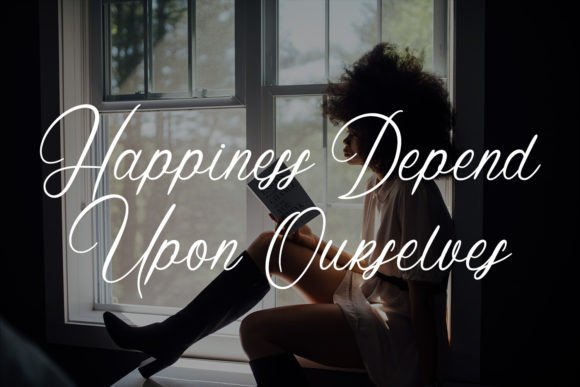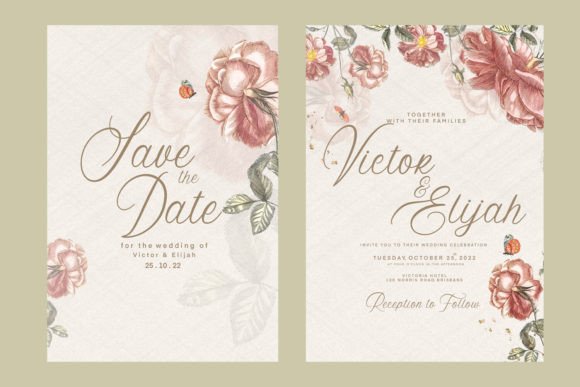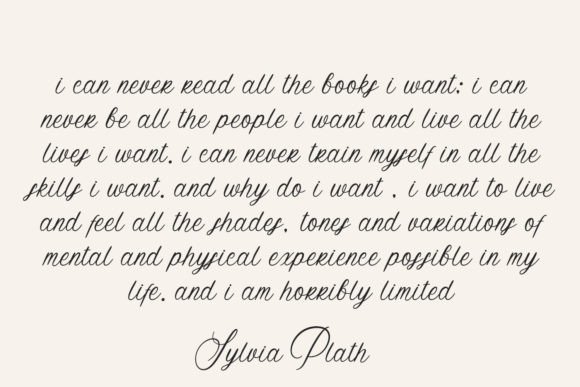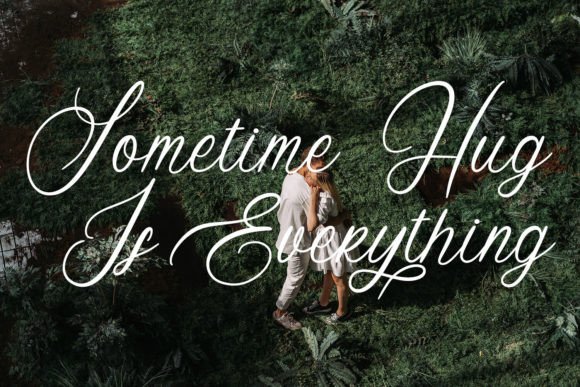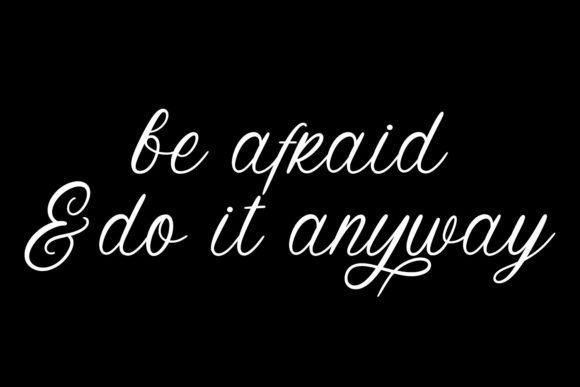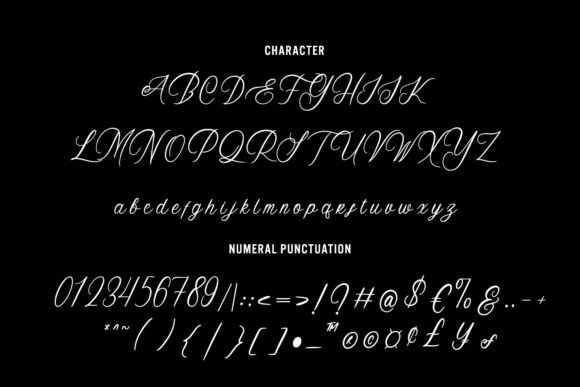
Unveiling the Charm of Behind Story Font: Elevate Your Designs with a Touch of Handwritten Elegance
In the realm of typography, fonts play a pivotal role in conveying the essence and personality of a design. Among the myriad of fonts available, the Behind Story Font stands out for its unique, handwritten characteristics, making it an ideal choice for designers and crafters looking to infuse their projects with a personal touch. In this article, we’ll delve into the story behind this captivating font, its features, and how it can be a game-changer for various design projects.
The Genesis of Behind Story Font
Behind Story – Script Font is not just any ordinary font; it’s a meticulously crafted typeface designed to bring a sense of warmth and authenticity to designs. Its creation was inspired by the beauty of handwritten scripts, aiming to encapsulate the elegance and fluidity of human handwriting in a digital format. This font is perfect for those who wish to add a personal, handmade feel to their branding projects, logos, wedding designs, media posts, advertisements, product packaging, product designs, labels, photography, watermarks, invitations, stationery, and more.
Distinctive Features of Behind Story Font
So, what makes Behind Story Font a standout in the world of typography? Here are some of its distinctive features:
- Handwritten Elegance: The font boasts a beautiful, handwritten script that adds a touch of elegance and sophistication to any design.
- Versatility: Its versatile nature makes it suitable for a wide range of projects, from branding and advertising to personal stationery and event planning.
- Easy to Read: Despite its elegant and cursive nature, the font maintains a high level of readability, making it perfect for both headings and body text.
- Customizable: Being a digital font, it can be easily customized to fit the specific needs of a project, including adjustments in size, color, and style.
Applications of Behind Story Font
The applications of Behind Story – Script Font are vast and varied. Here are some of the key areas where this font can make a significant impact:
- Branding Projects: Use it to create a unique and memorable brand identity that stands out from the competition.
- Wedding Designs: Add a touch of romance and elegance to wedding invitations, stationery, and decor.
- Media Posts and Advertisements: Make your social media posts and ads more engaging and eye-catching with this beautiful script font.
- Product Packaging and Designs: Elevate your product’s aesthetic appeal with a font that exudes quality and sophistication.
- Photography and Watermarks: Use it to add a professional and artistic touch to your photographs and watermarks.
Behind Story – Script Font is more than just a font; it’s a design element that can transform your projects with its unique, handwritten charm. Whether you’re a designer looking to elevate your branding projects or a crafter aiming to add a personal touch to your creations, this font is sure to meet your needs. With its elegance, versatility, and readability, Behind Story Font is poised to become a favorite in your typography arsenal. So, why wait? Dive into the world of Behind Story Font and let your designs speak with a more personal and elegant voice.